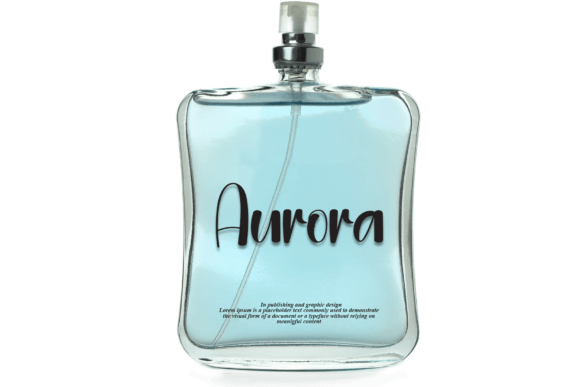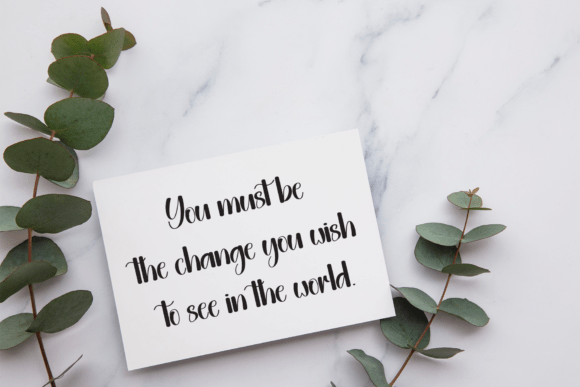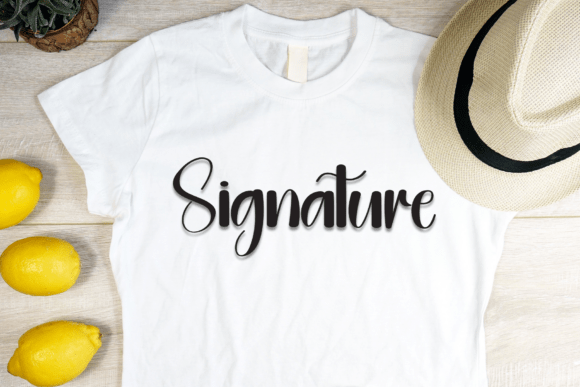
Introduction to Party Barbecue Font
As designers, we’ve all been there – staring at a blank canvas, searching for that perfect font to bring our creative project to life. The moment it clicks, the excitement is palpable. For those looking to add a personal touch to their designs, the Party Barbecue Font is a game-changer.
This charming script handwritten font seamlessly blends natural flow with effortless elegance, making it a must-have design resource for any project. With smooth curves and varied stroke widths, the Party Barbecue Font brings a heartfelt touch that’s perfect for logos, wedding invitations, social media graphics, and personal branding.
Whether you’re aiming for a romantic, feminine, or casual design, this versatile font offers a handmade feel that’s hard to resist. Plus, with a high-quality, transparent background, you can be sure your design will stand out from the crowd.
Key Features of Party Barbecue Font
- High-quality design resource: This font is designed with precision to deliver a premium look and feel.
- Size and resolution: Each font character is carefully crafted to ensure optimal legibility at 72 dpi and 300 dpi resolutions.
- Unique characteristics: The Party Barbecue Font features bold, playful letterforms and stylized numerals that add a touch of whimsy to any creative project.
- Perfect for creative projects: Use the Party Barbecue Font to add a fun, festive vibe to invitations, social media graphics, and more.
Honest Review: Party Barbecue Font
As a designer, I’m always on the lookout for fresh and unique fonts to elevate my creative projects. The Party Barbecue Font caught my eye, and I decided to give it a spin. Here’s my honest review.
What works well: ✨ The font is super fun and playful, perfect for any party-themed project. It’s also available for free download, making it a fantastic design resource for anyone on a budget. The font has a transparent background, which allows for seamless integration with any design element.
- Unique and quirky design
- Perfect for party and summer-themed projects
- High-quality design, suitable for professional use
Limitations: ⚠️ The font might not be suitable for formal or professional projects, as it’s quite playful and casual. Additionally, the font could benefit from more customization options, such as font size and color variations.
Overall, I’m impressed with the Party Barbecue Font. It’s a fantastic addition to any design collection, and its free download option makes it a must-have for designers on a budget. With its unique design and high-quality look, I’m sure it’ll become a favorite among designers looking for a fun and playful font.
Tips for Getting the Most Out of Party Barbecue Font
To get the most out of the Party Barbecue Font, use it with a transparent background to create a striking design. You can also combine it with other design elements to create a unique look.
The Party Barbecue Font is ideal for use in party invitations, social media graphics, and event promotional materials. Its high-quality design makes it perfect for any creative project.
Alternatives to Party Barbecue Font
Pacifico is a beautiful, high-quality script font perfect for creative projects, such as wedding invitations, menus, and other design elements that require a touch of elegance. It’s available for free download and can be easily customized to suit your design needs. When to use: For a more sophisticated look, use Pacifico for titles, headings, or short paragraphs. It’s a great alternative to Party Barbecue Font for those who want a more refined and luxurious feel.
Comparison: While Party Barbecue Font is more playful and casual, Pacifico exudes a sense of sophistication and luxury. Pacifico is ideal for high-end designs, while Party Barbecue Font is better suited for casual, fun projects.